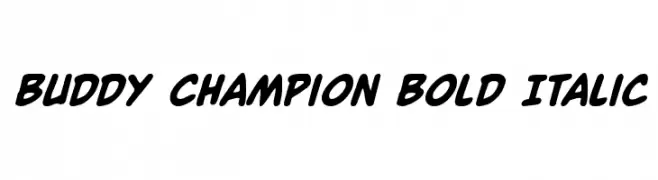
A bold, italicized font with sharp, angular lines and a dynamic style.
A bold, rounded sans-serif font designed for optimal readability.
A bold, italicized font with a playful and dynamic style.
A bold, italicized font with dynamic, brush-like strokes.
A bold, brush-style font with dynamic and expressive strokes.
A bold, italicized font with a playful and dynamic style.